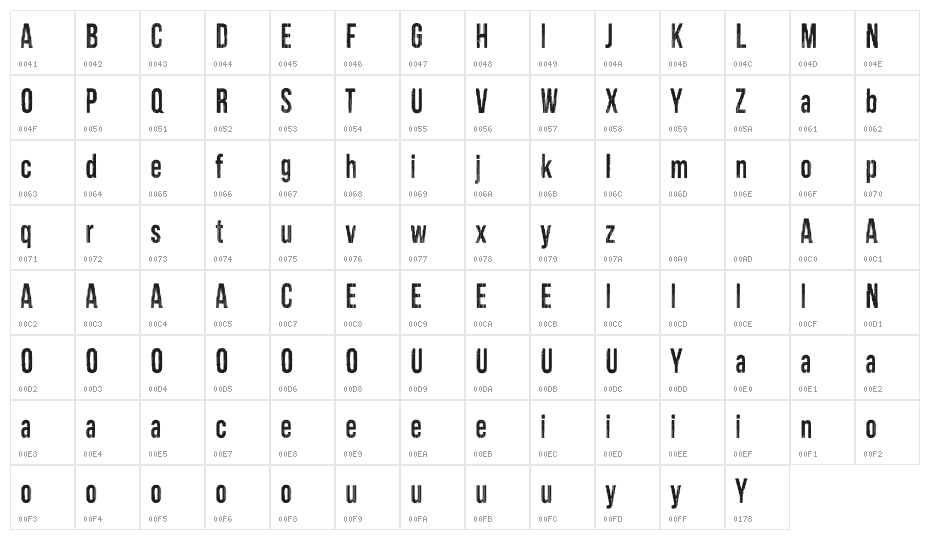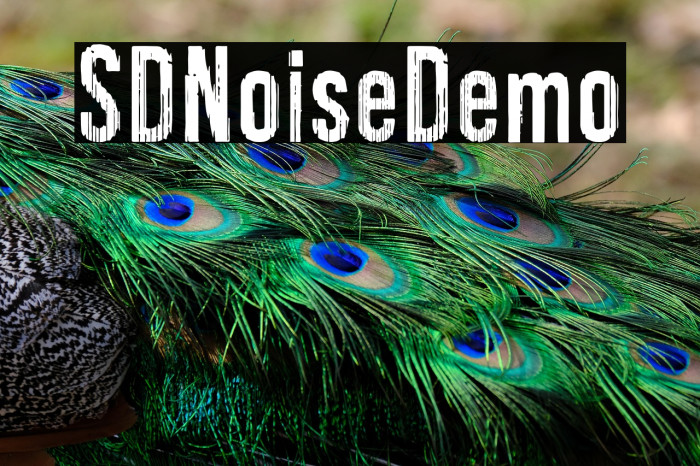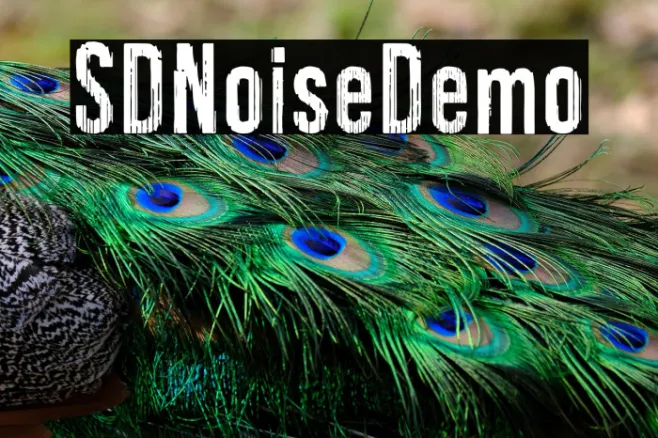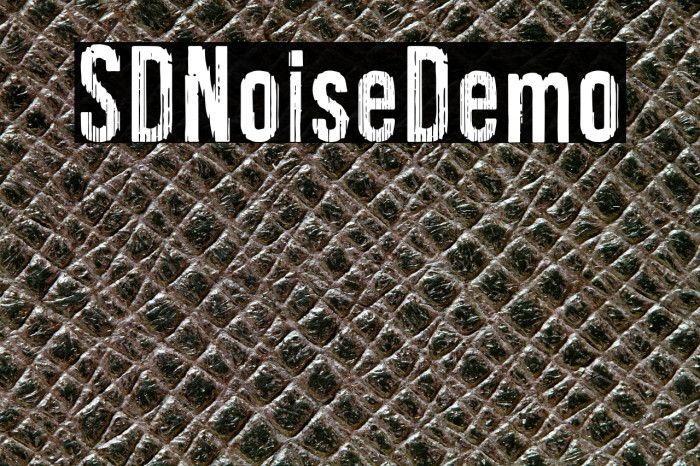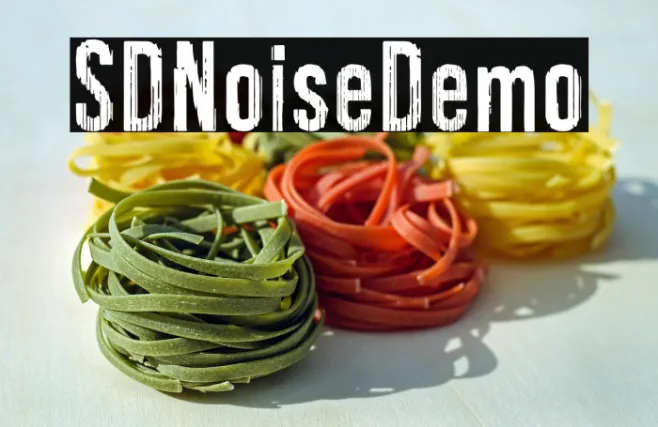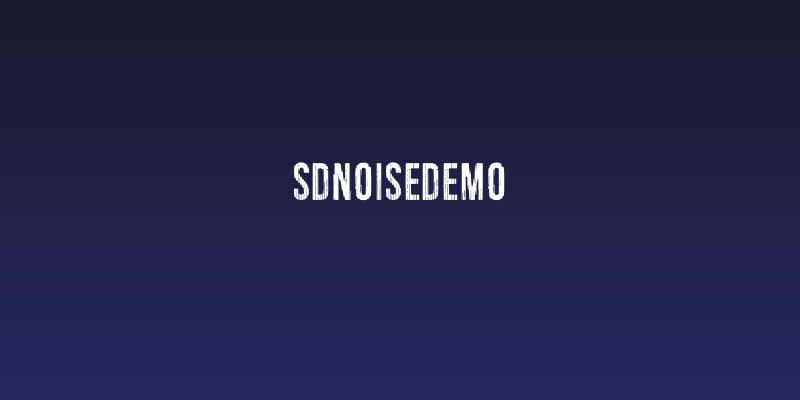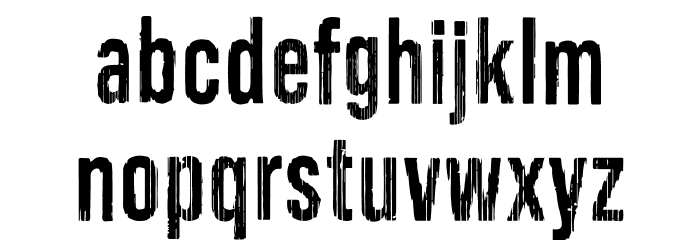
SDNoiseDemo Font
SDNoiseDemo Description
This font features a distressed, grunge style with a textured appearance that mimics the look of worn or weathered text. The characters have a bold presence with irregular edges and a rough finish, giving them a unique and edgy look. The uppercase and lowercase letters maintain a consistent style, while the numbers and special characters follow the same distressed pattern. This font is ideal for projects that require a rugged, vintage, or industrial aesthetic.